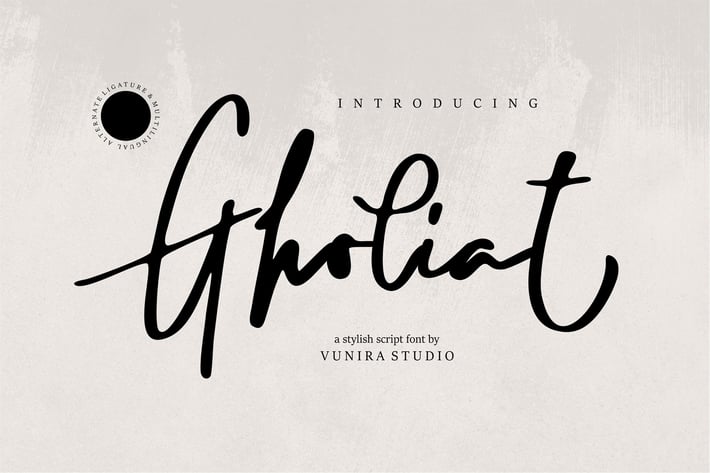
Gholiat | Stylish Script Font
Gholiat | Stylish Script Font with a calligraphy style, So beautiful on invitation like greeting cards, branding materials, business cards, quotes, posters, and more!